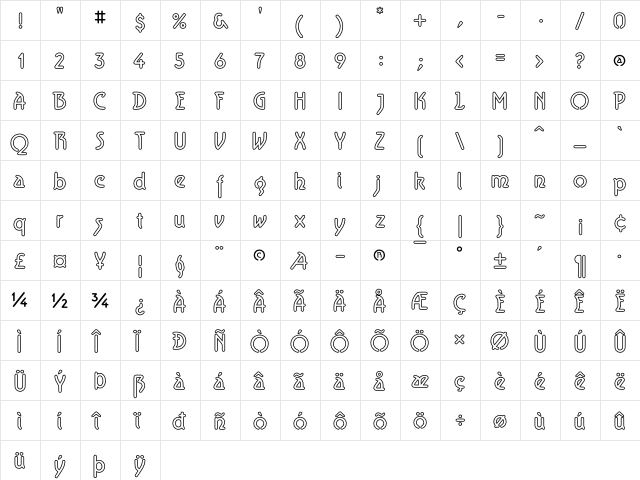
Aerolite Sky Regular Font Preview
Aerolite Sky Regular
Aerolite Sky Regular Font Details
| Foundry | Jan Paul, ƎIGMA FONTS |
| Designer | Jan Paul |
Design Context for Aerolite Sky Typeface
Aerolite Sky is a composed and adaptable typeface that performs quietly and consistently across a wide range of design contexts.